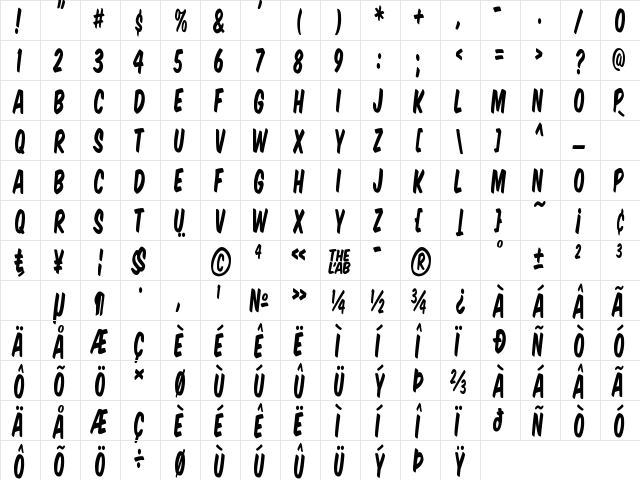
Komika Title - Tall Regular Font Preview
Komika Title - Tall Regular
Komika Title - Tall Regular Font Details
| Designer | WolfBainX & Apostrophe |
Design Context for Komika Title - Tall Typeface
Komika Title - Tall is a composed and adaptable typeface that performs quietly and consistently across a wide range of design contexts.